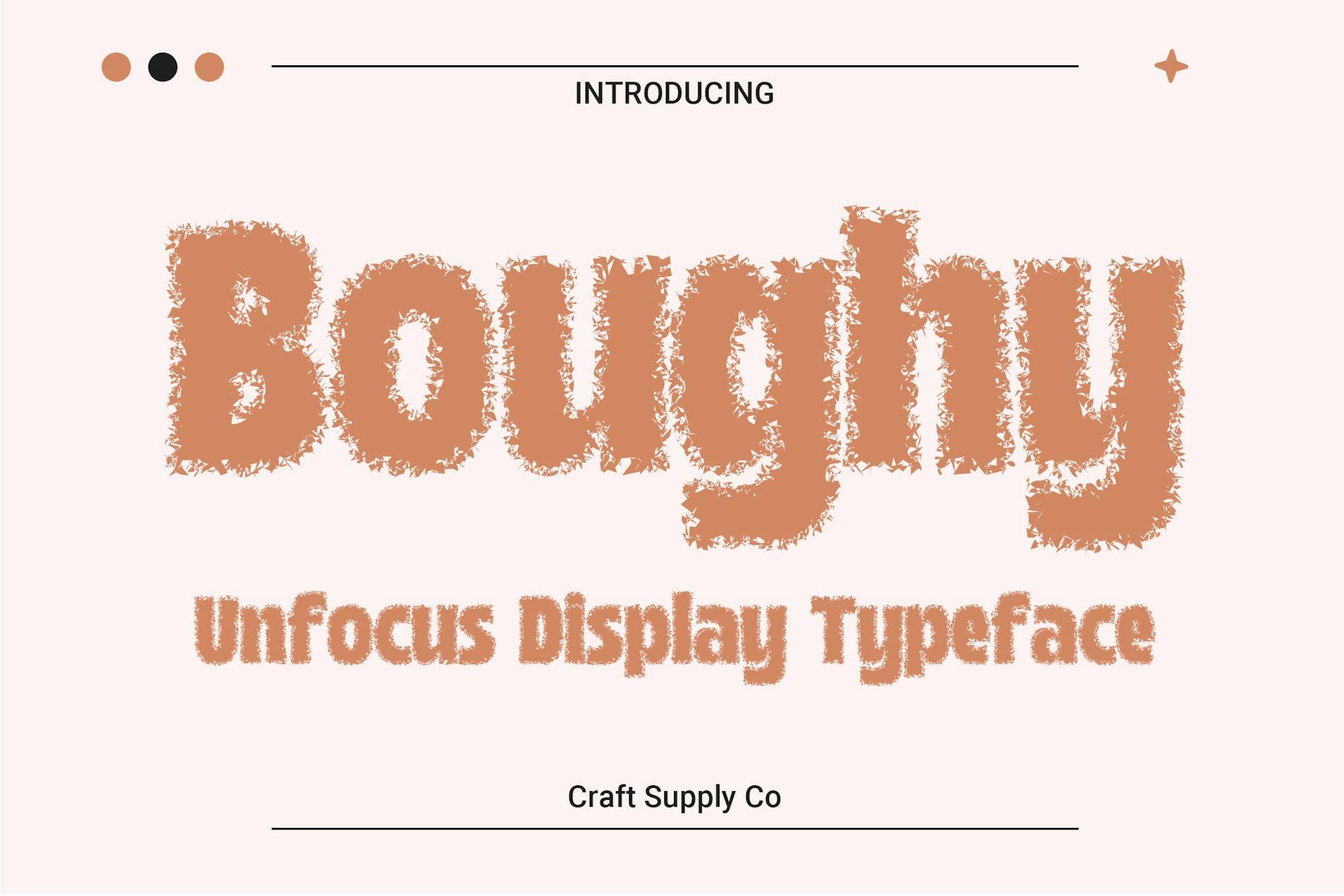
Boughy Unfocus Font
Boughy Unfocus Font creates dreamy artistic posters, abstract photography exhibitions, experimental music album covers, creative agency portfolios, avant-garde fashion campaigns, contemporary art galleries, indie film credits, atmospheric brand identities, psychological thriller graphics, surreal marketing materials, conceptual design projects, and artistic expression platforms where mysterious blur effects and creative ambiguity generate intriguing visual experiences.
This captivating typeface generates excitement through its innovative exploration of visual perception and artistic abstraction that creates typography challenging conventional readability while maintaining compelling aesthetic appeal. Boughy Unfocus Font pushes creative boundaries with its deliberately blurred and softened letterforms that evoke dream states, memory fragments, and psychological depth. The font's experimental design approach incorporates intentional distortion effects that suggest movement, emotion, and subconscious expression, creating typography that speaks to viewers on an intuitive rather than literal level. Its distinctive character reflects the artistic freedom found in contemporary experimental design and conceptual art movements.
The Boughy Unfocus Font family encompasses multiple atmospheric variations including Regular, Light, Medium, Bold, and Extra Blur versions, each offering different levels of unfocused effects and visual distortion. The collection features varying degrees of blur intensity, soft edge treatments, and atmospheric textures that enhance its dreamlike quality. Additional stylistic sets include motion blur effects, fade treatments, and layering options that provide designers with comprehensive tools for creating sophisticated atmospheric typography compositions.
Experimental designers and creative agencies consistently select Boughy Unfocus Font Free Download for projects requiring typography that challenges perceptions and creates memorable emotional responses. This remarkable typeface excels in applications where artistic expression and conceptual communication take precedence over traditional readability concerns. The font's atmospheric qualities make it particularly effective for creative industries targeting audiences who appreciate artistic innovation, experimental aesthetics, and unconventional design approaches.
Whether you're designing avant-garde marketing campaigns, creating experimental art installations, developing atmospheric brand identities, or producing conceptual creative projects, Boughy Unfocus Font delivers unmatched artistic innovation. Its ability to convey mystery, emotion, and creative depth makes it invaluable for artists and designers seeking typography that transcends conventional boundaries. The font's experimental nature ensures your designs will stand out as examples of cutting-edge creative expression that challenges viewers' perceptions and creates lasting artistic impressions.